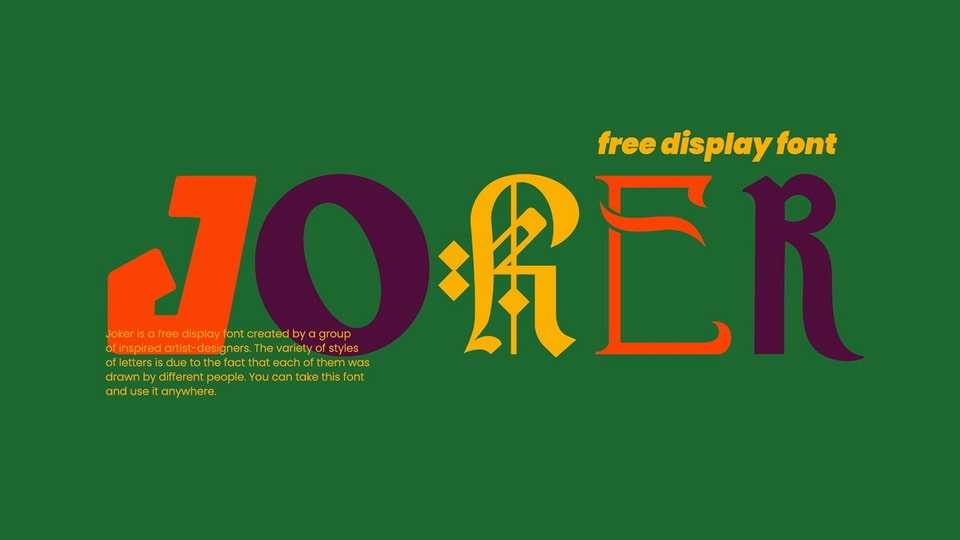
Download Joker font, a display typeface created by a group of inspired artist-designers. The variety of styles of letters is due to the fact that each of them was drawn by different people.
Designer: Yaroslav Dolzhenko